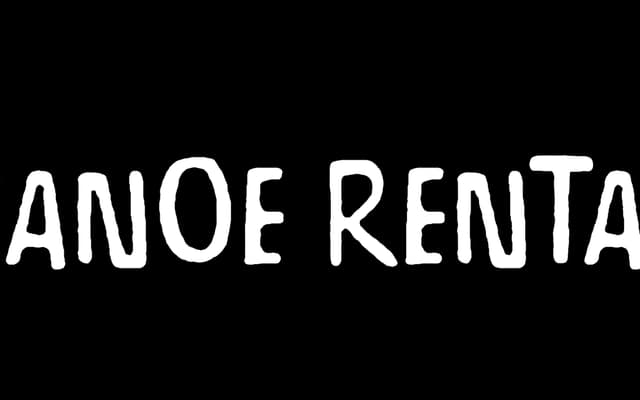
Canoe Rental
A hand-lettered display typeface offered in aligned and off-kilter variants, evoking the casual warmth of hand-painted signage.
Built around all-caps letterforms with lowercase alternates, the family comes in two subfamilies: one neatly aligned, one deliberately askew for a looser, more spontaneous feel. Coverage extends to numerals and basic punctuation. It works at small sizes as well as display scale, making it adaptable for branding, packaging and editorial contexts that call for a human, unhurried quality.
A hand-lettered all-caps display typeface with an informal, casual character; the deliberate irregularity and off-kilter variant place it firmly in the hand-rendered display category.